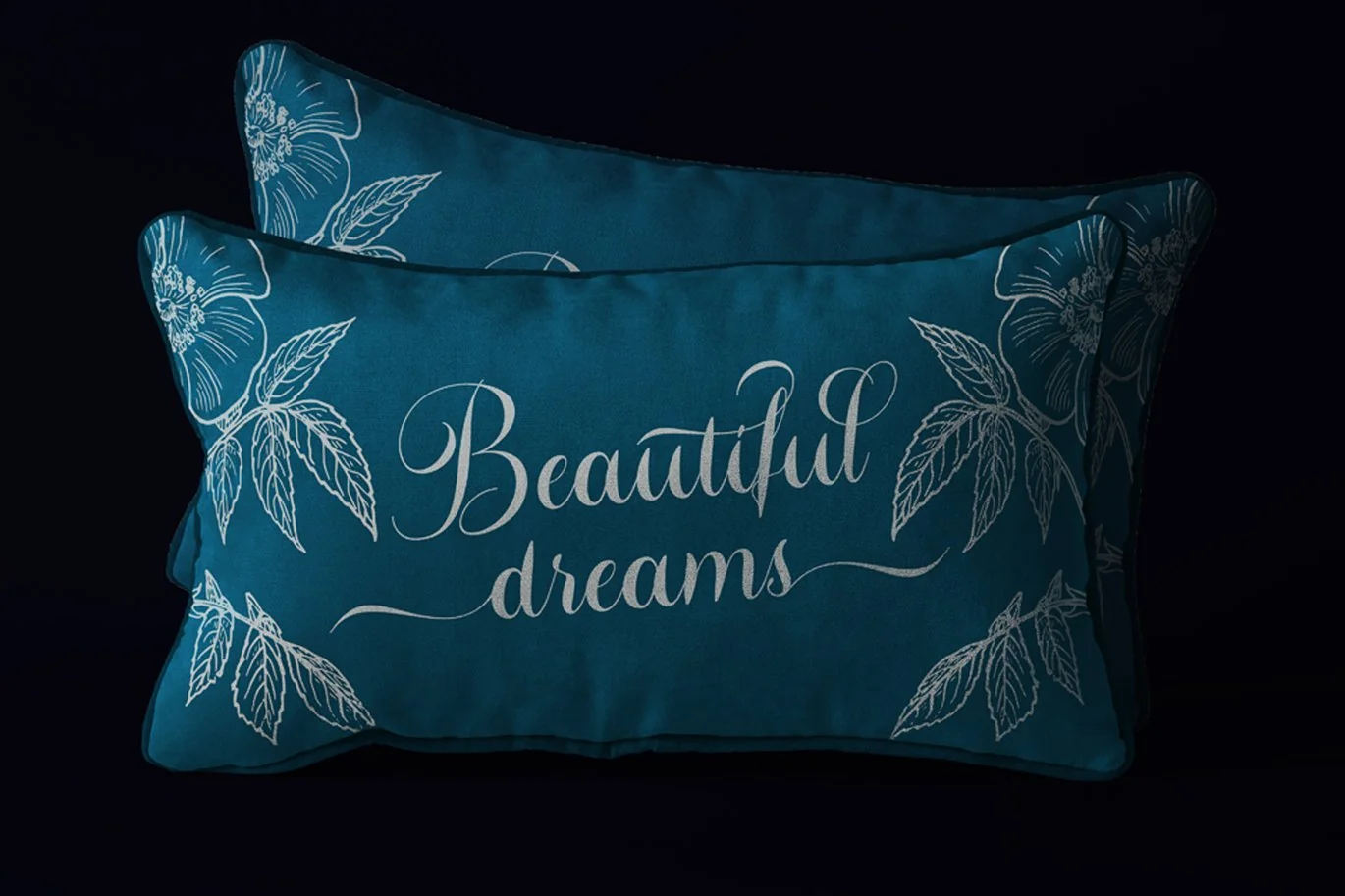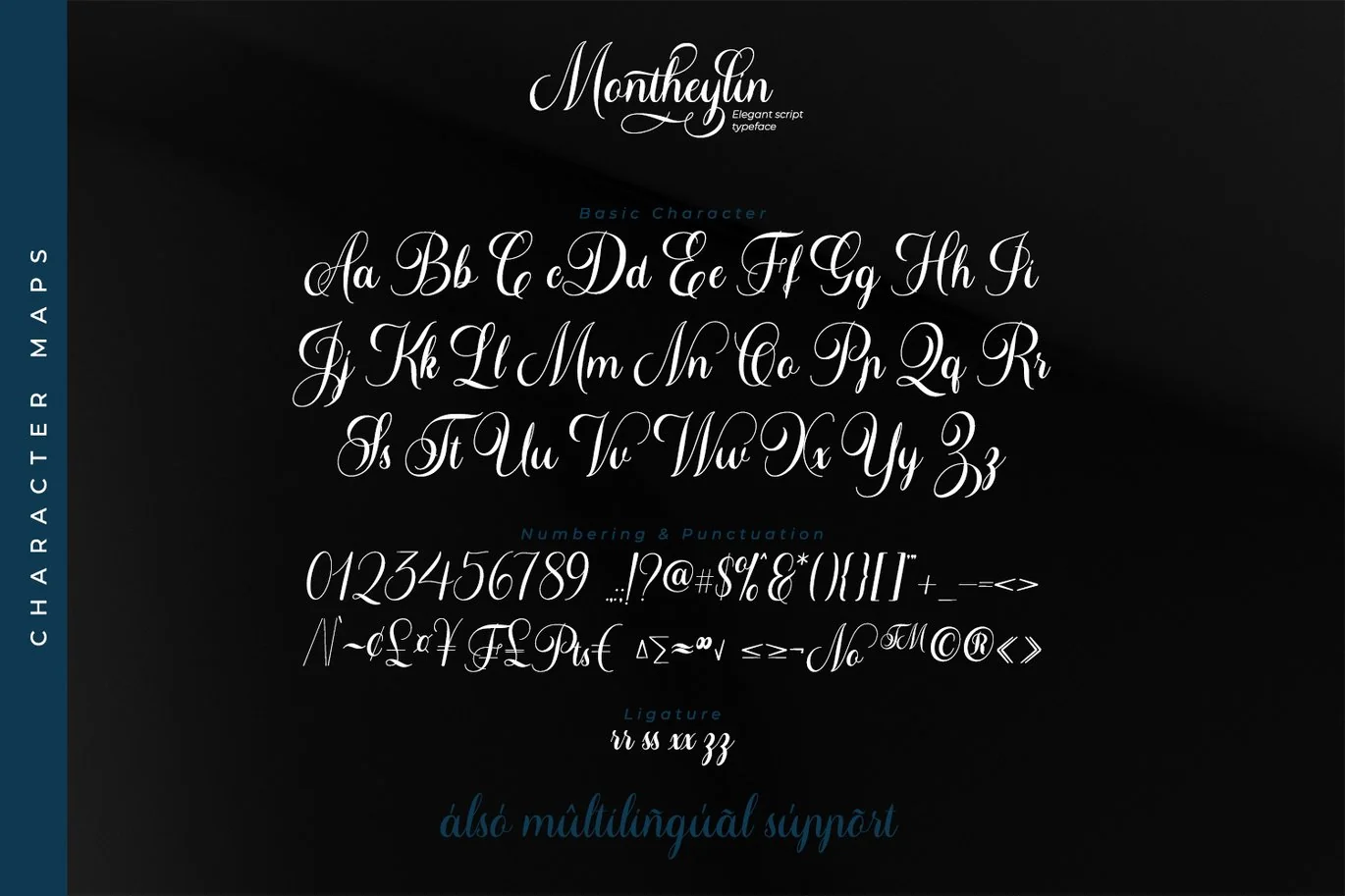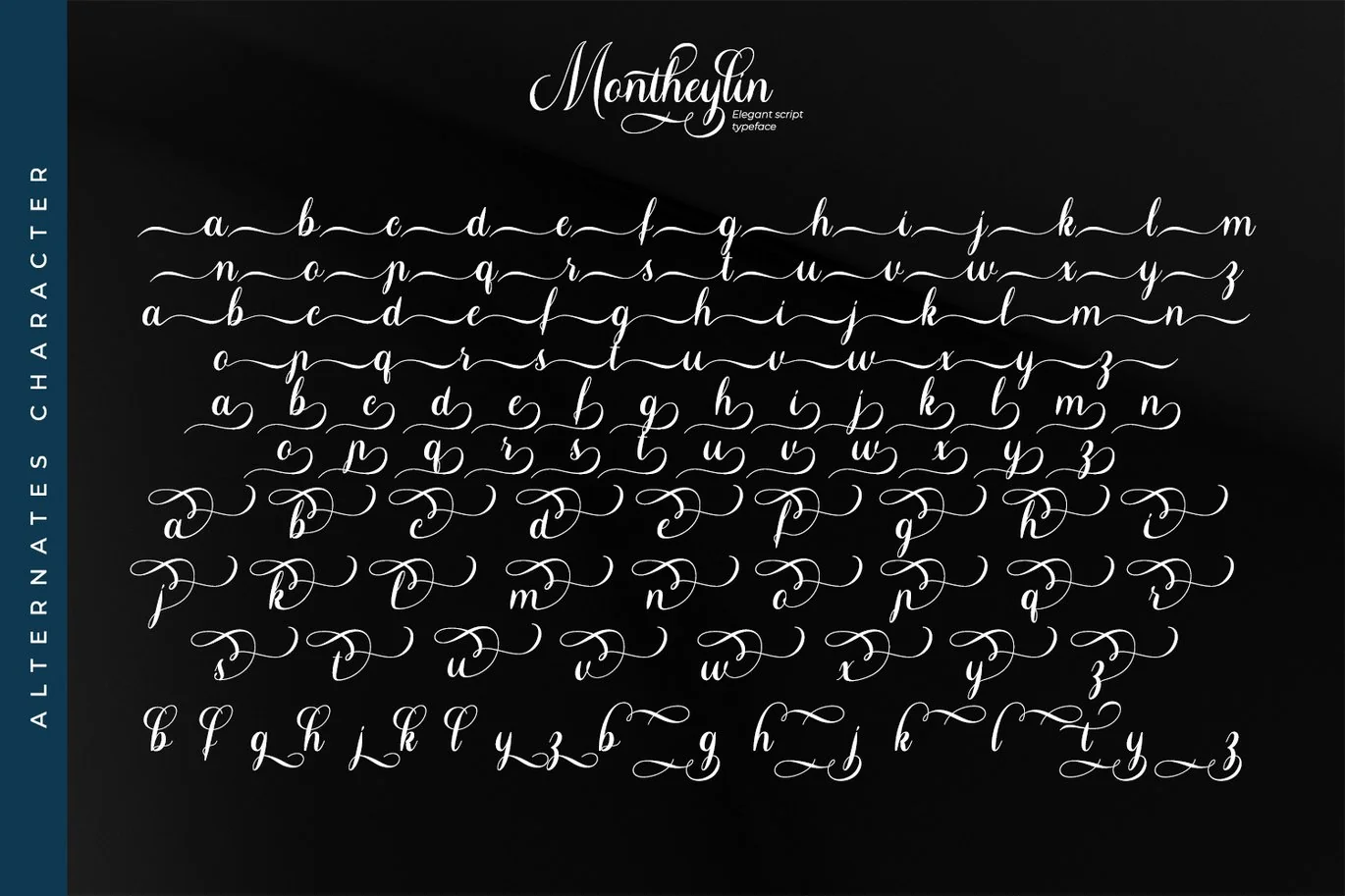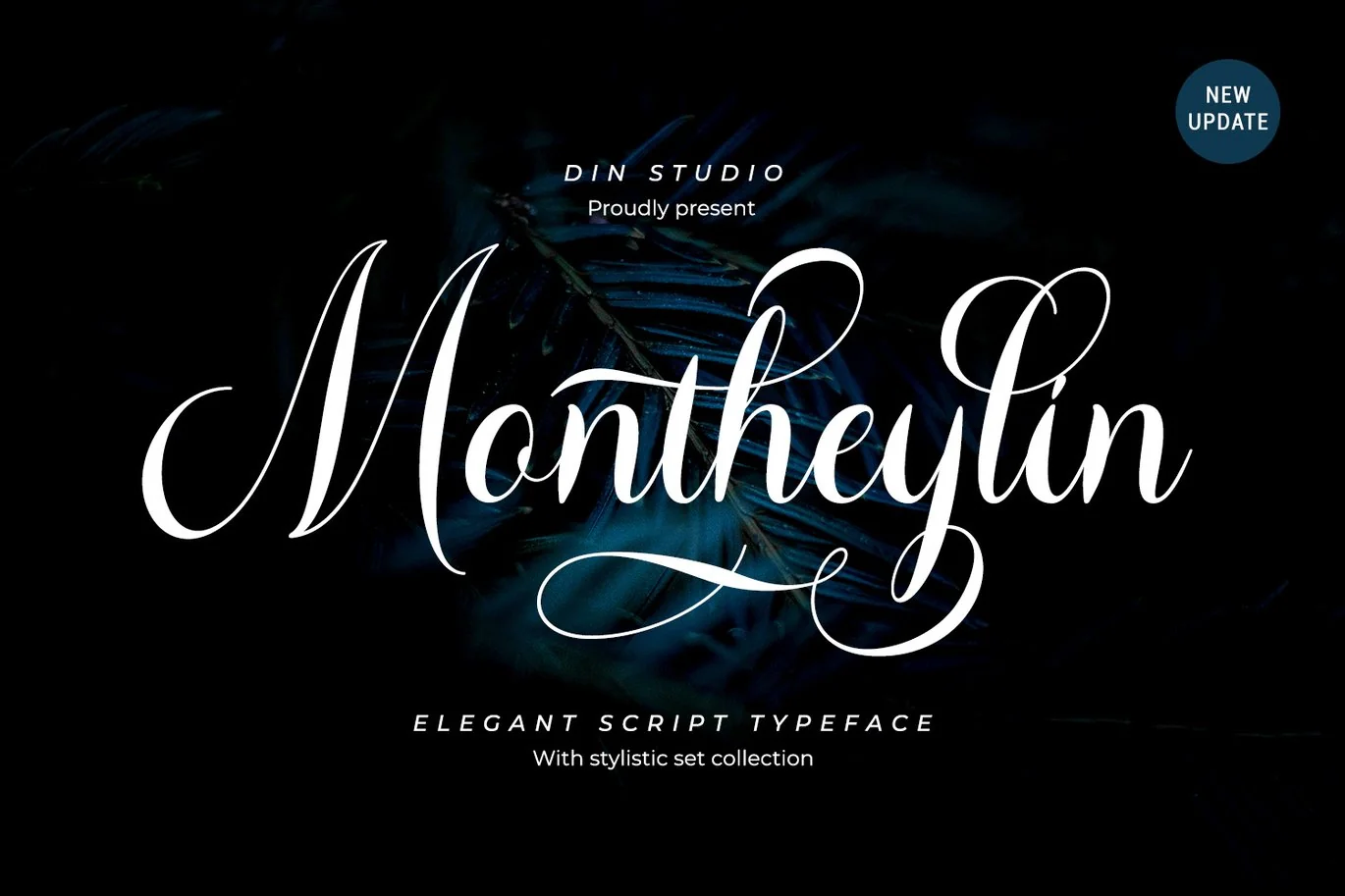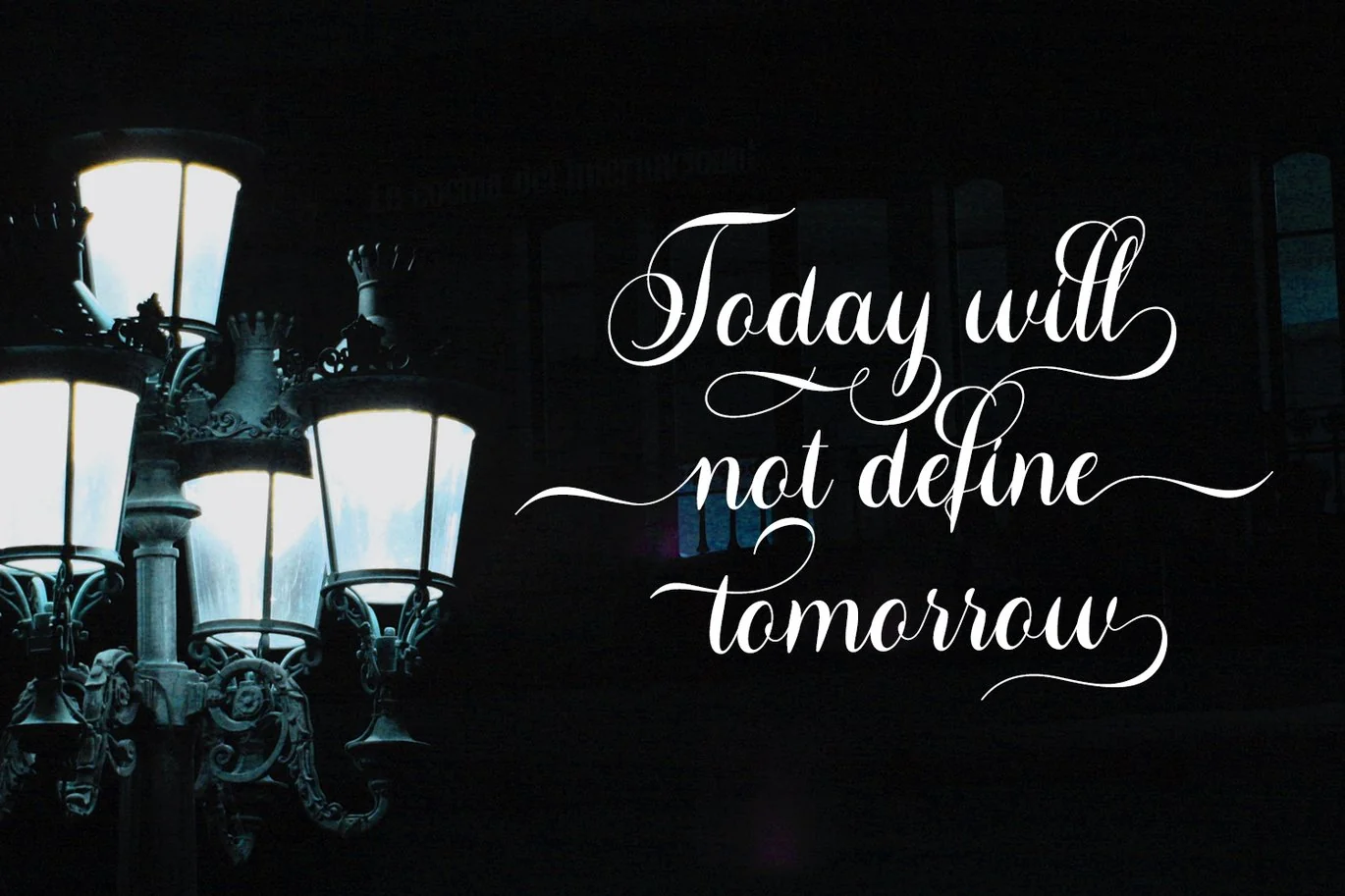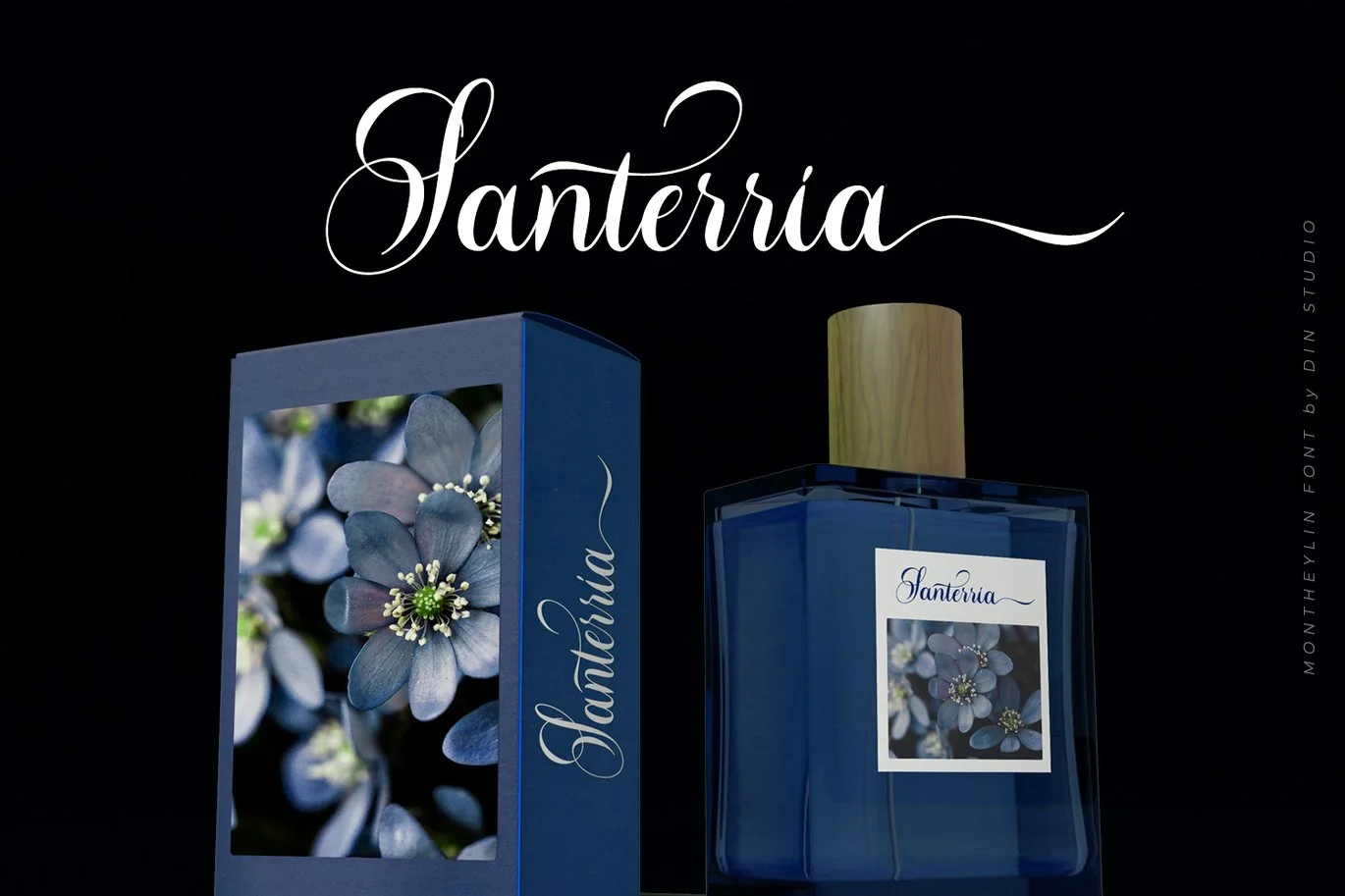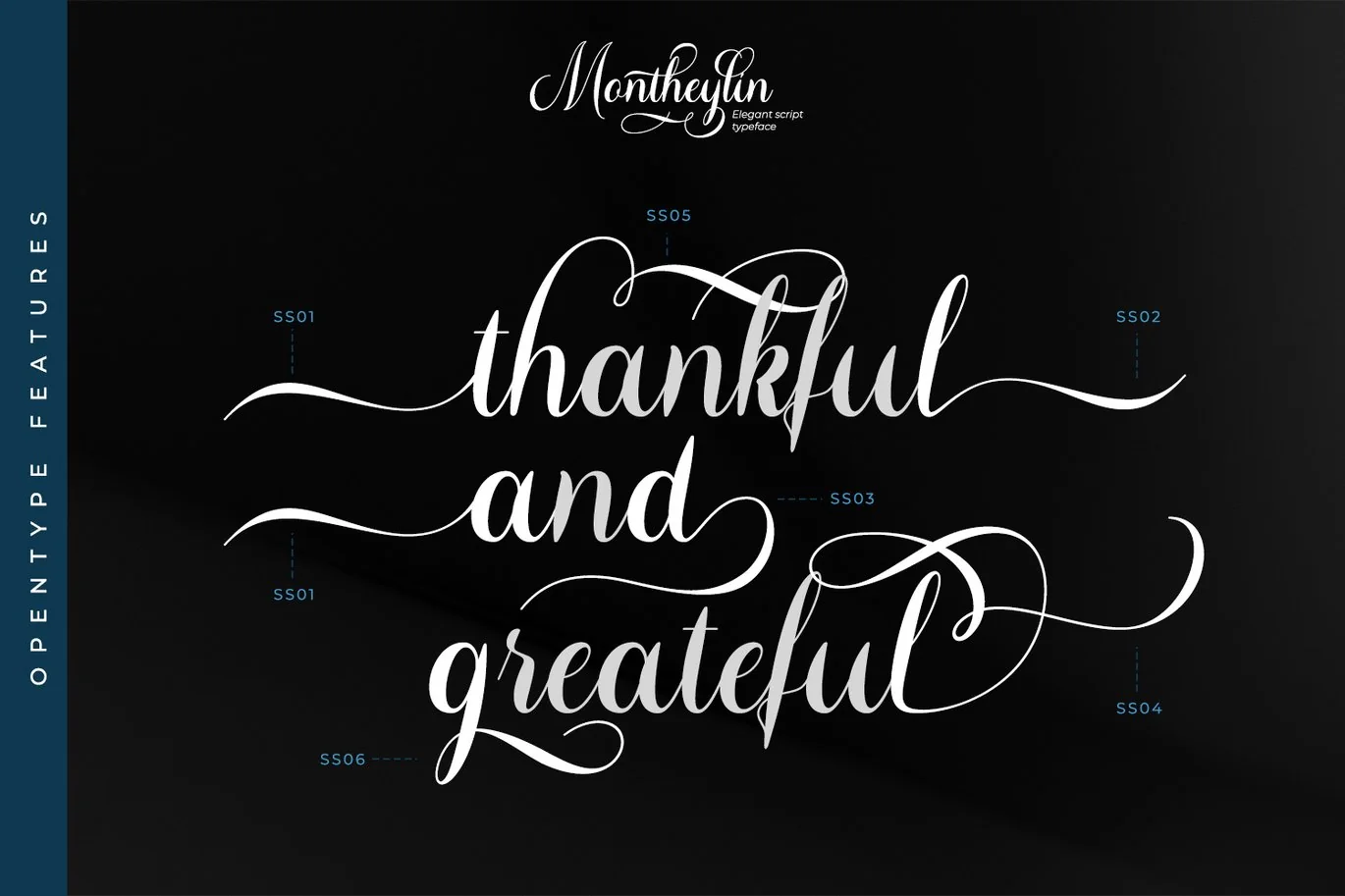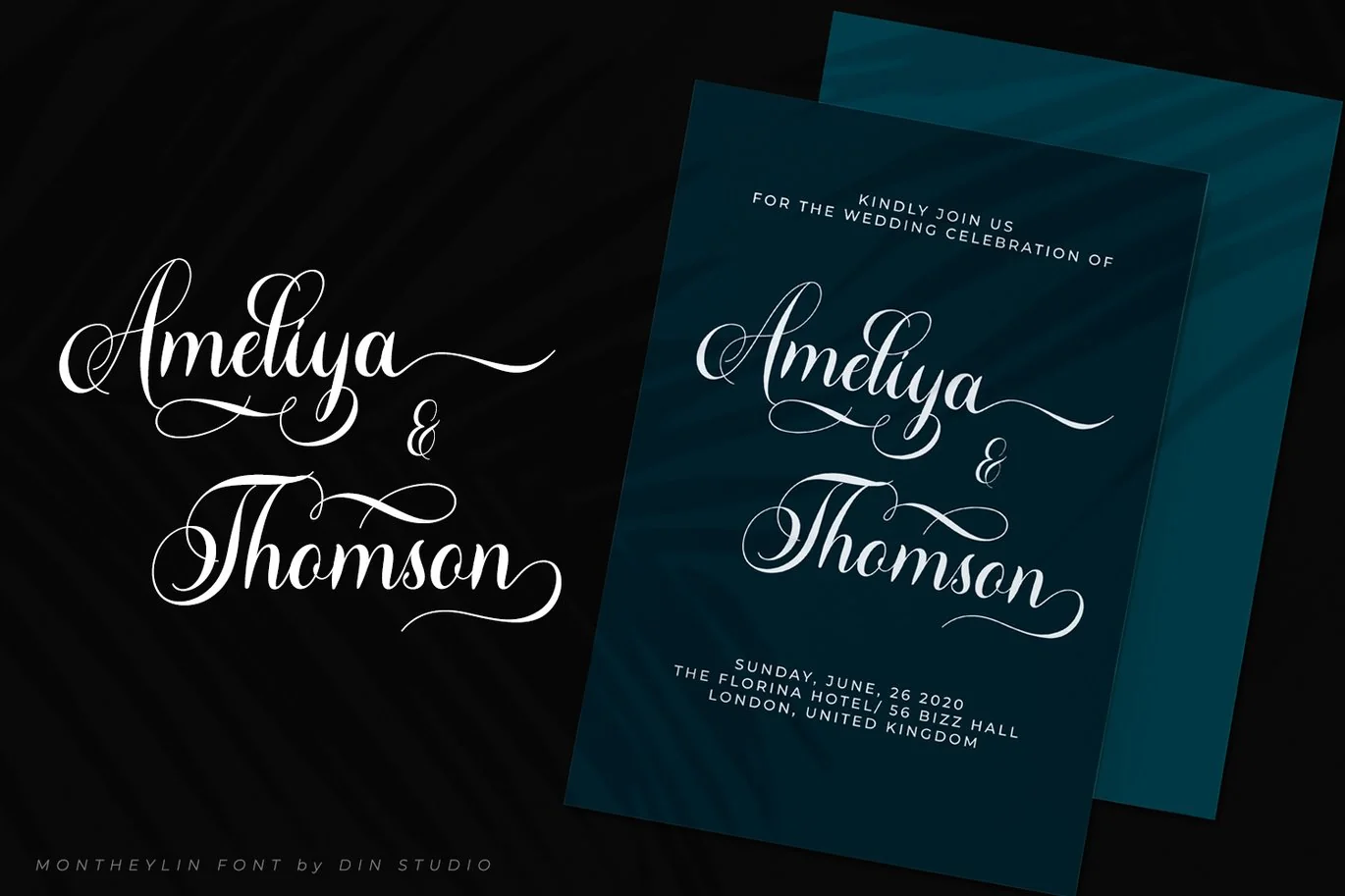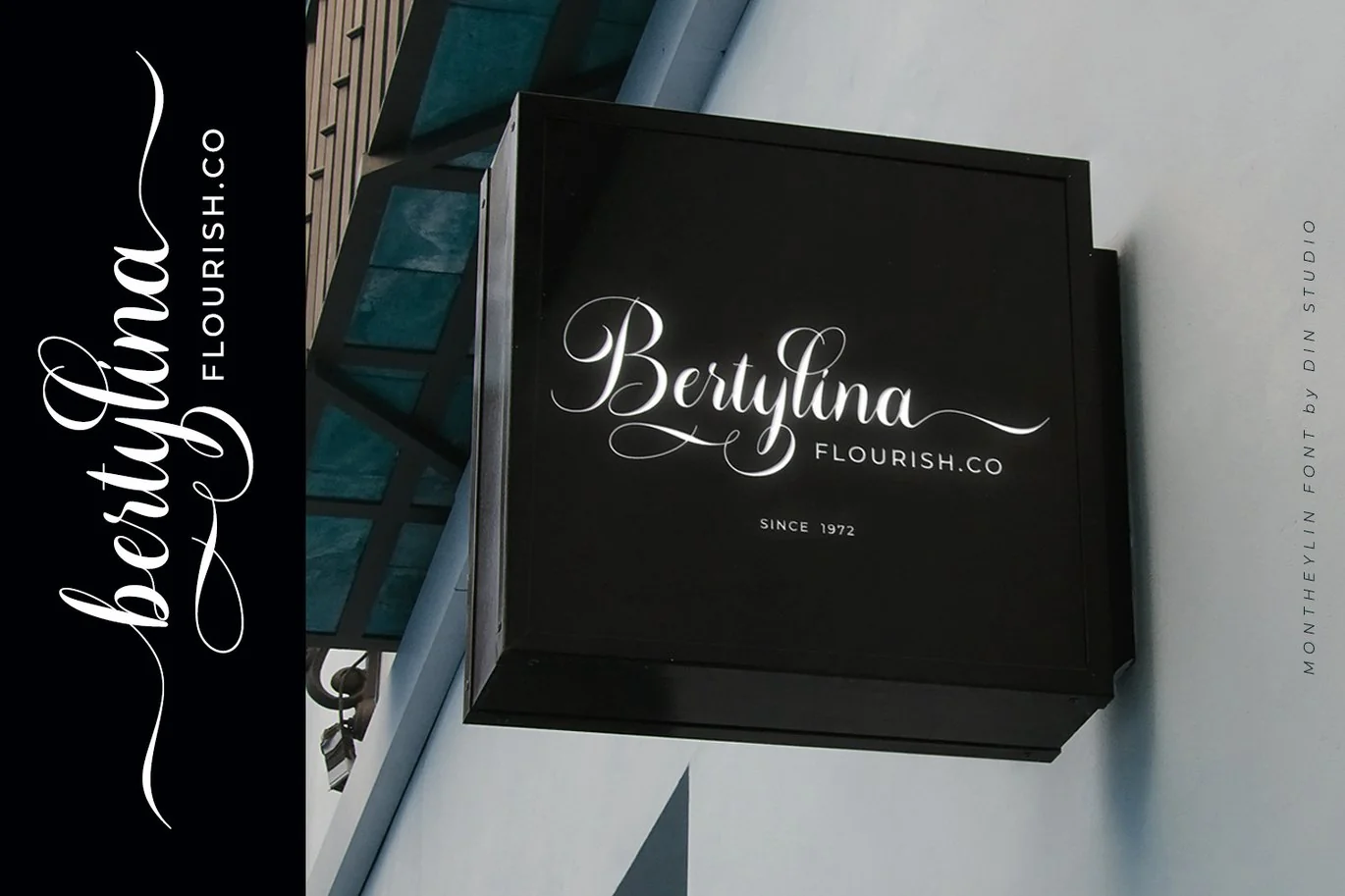
Montheylin-Calligraphy Font
Montheylin is a elegant calligraphy with natural and handwritten style. It brings a beautiful and modern typeface. Made for any professional project branding. It is the best for logos, branding, wedding and quotes.
- Stylistic Set
- Beautiful Ligatures
- Numerals and Punctuation